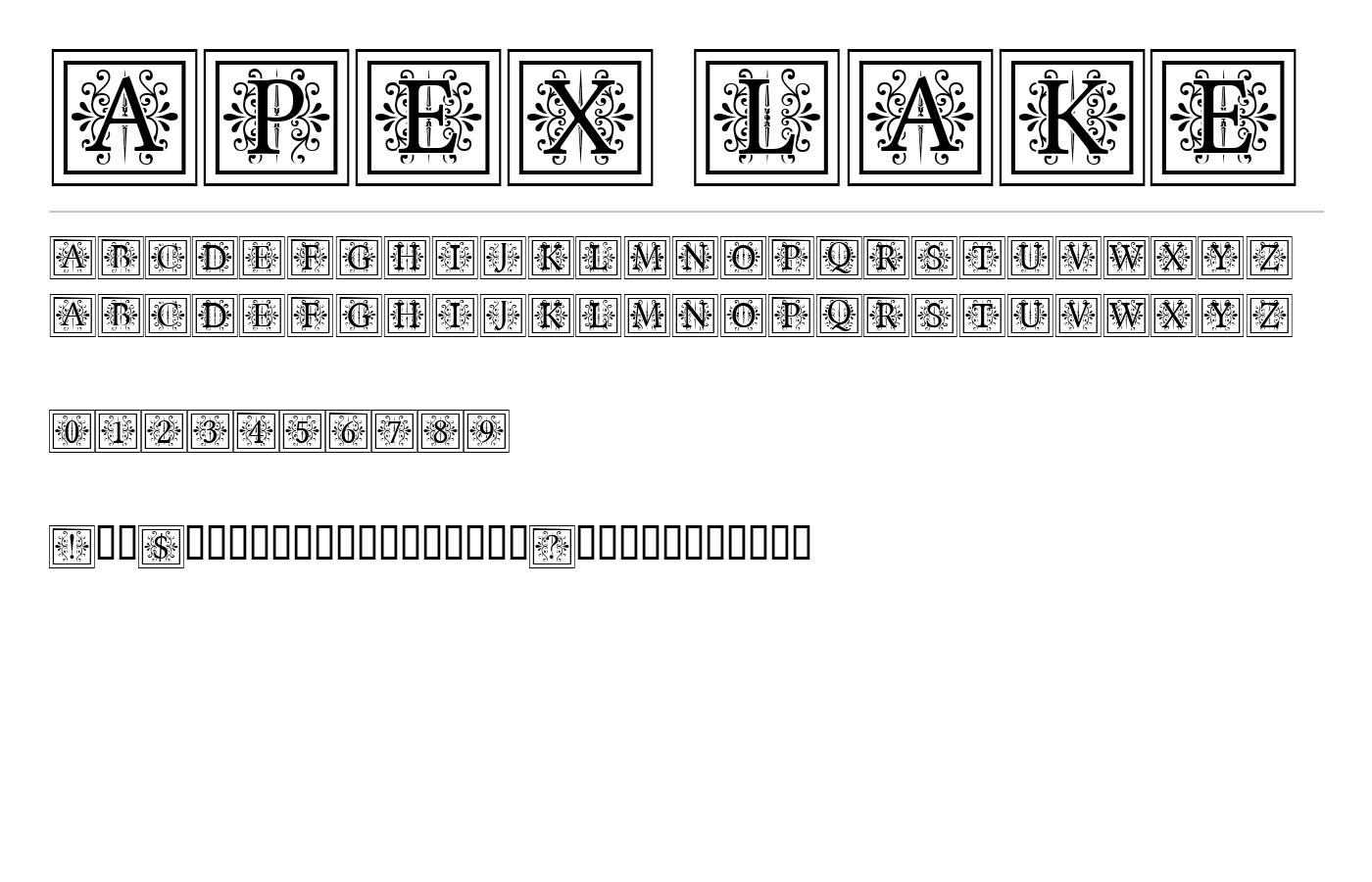
Apex Lake is an ornate serif display font characterized by its decorative swirls and intricate floral patterns within each letter, enclosed in framed squares. This font feels vintage and elegant, perfect for creating a luxurious, classical impression suitable for decorative titles, logos, or packaging that seeks a refined, artistic touch.
Apex Lake Font